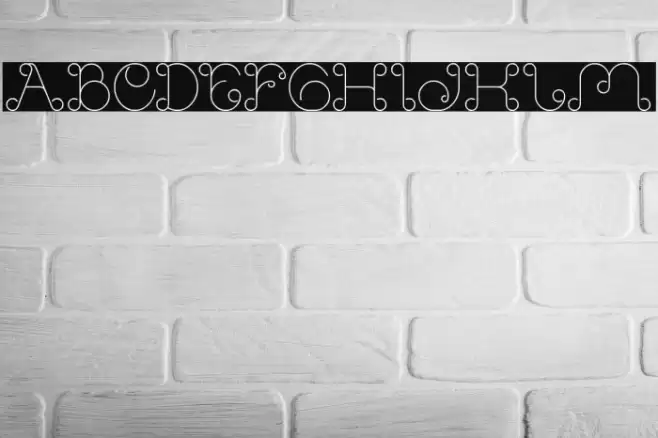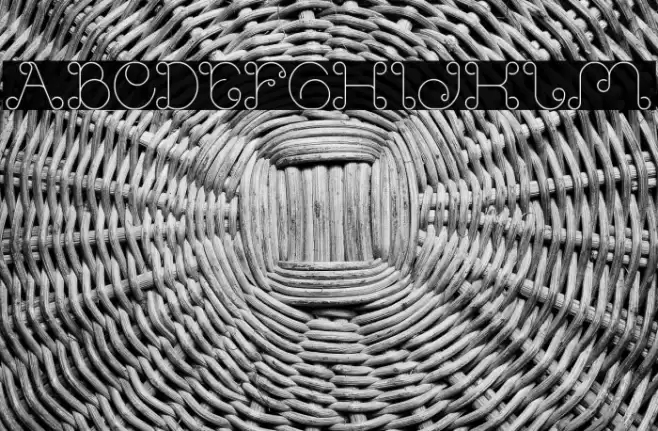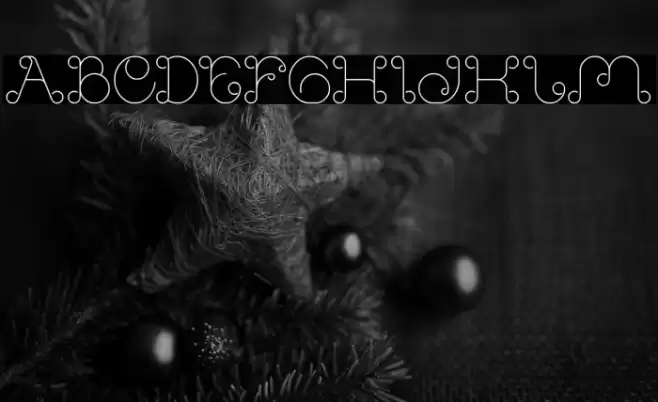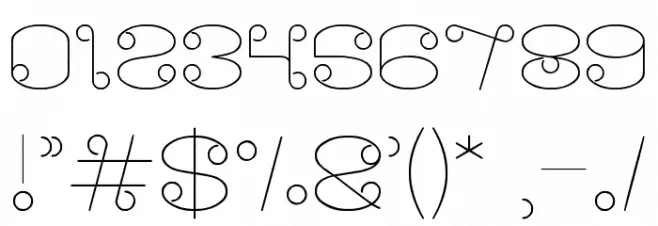
Modern Aristocrat Font
Modern Aristocrat Description
This font features a unique and decorative style with an elegant, looping design that adds a touch of sophistication. Each character is crafted with a continuous line that forms intricate loops and curves, giving it a whimsical yet refined appearance. The uppercase and lowercase letters maintain a consistent design theme, with rounded edges and a playful yet structured form. Numbers and special characters follow the same aesthetic, ensuring a cohesive look across all text elements. The overall design is both modern and artistic, making it suitable for creative projects that require a distinctive and eye-catching typeface.
A decorative font with elegant loops and curves, offering a whimsical yet refined style from Uncategorized fonts.
- Proposed Projects: Ideal for wedding invitations, artistic branding, creative posters, and unique logo designs.
- Overall Style: Modern, Decorative
- Use Case: Logos, Headlines, Artistic projects